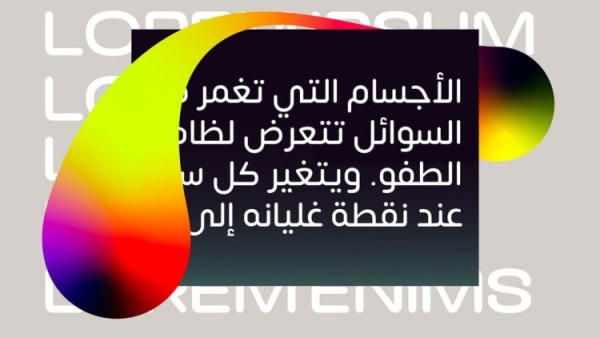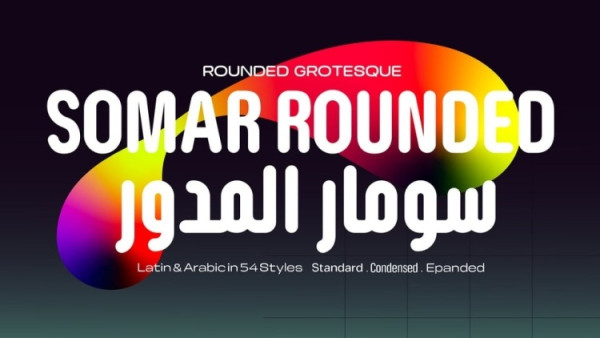
Somar Rounded Font is an extension of Somar Sans font family. Its creation process was inspired by the need to make a rounded font that doesn’t provoke a childish impression and remains functional in small spaces.
For the Latin version, we relied on the old Latin grotesque and rounded styles. While in the Arabic version, the Kufi style was the source of inspiration. The fusion of both styles yielded a holistic type system.
As a consequence, Somar Rounded comes in three styles and supports more than fifty languages in both Arabic and Latin with a homogeneous matching that facilitates its usage across different mediums.